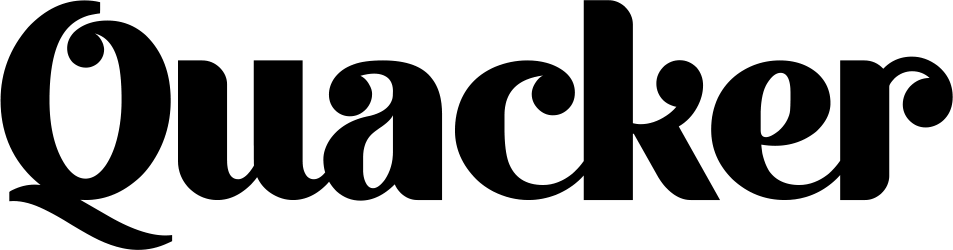
Quacker Font
Quacker is a retro font that which the edges of its characters are skewed and crooked. If you want to convey a sense of intelligence, innovation, and playfulness to the audience and impress them in this way, Quacker can be ideal for you. This font can be included in the design of billboards, digital banners, and website templates.